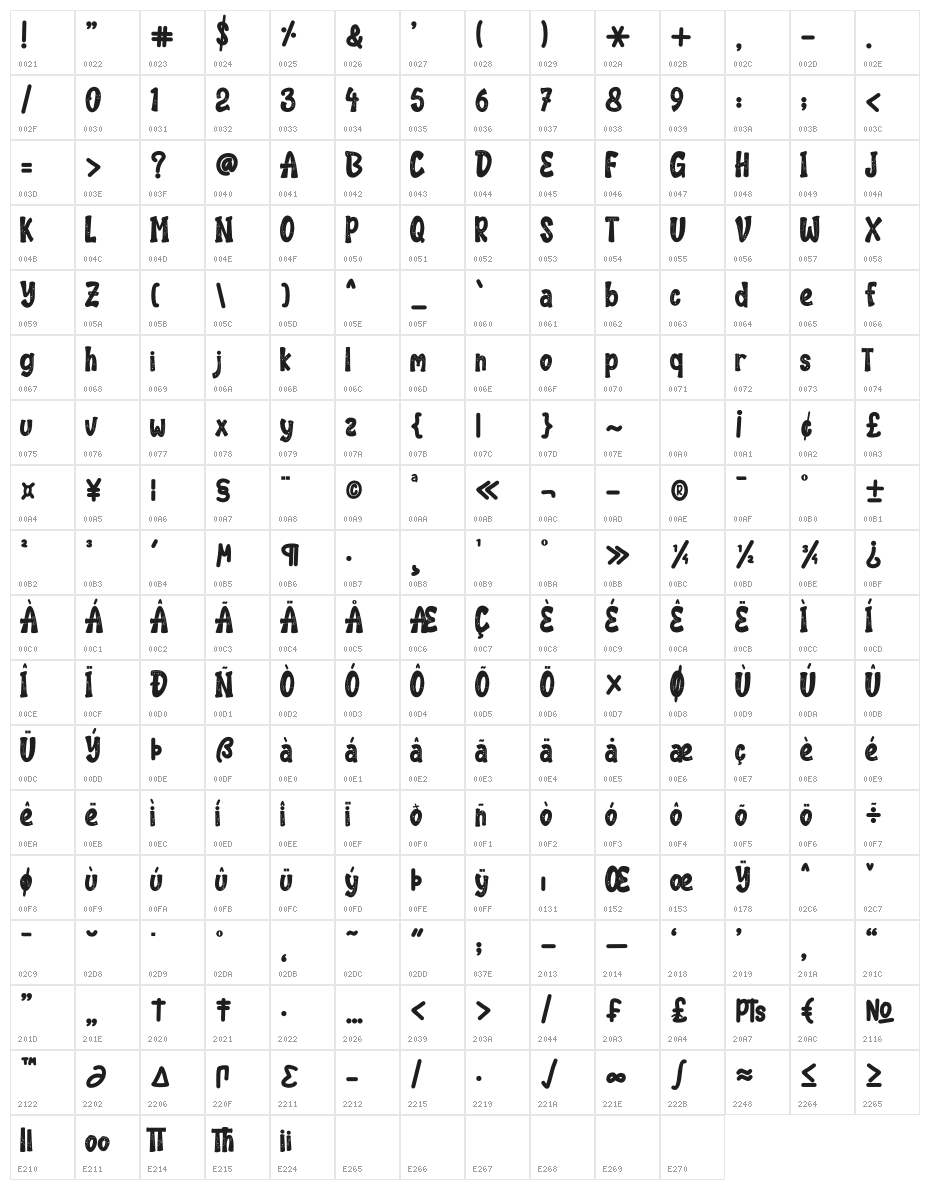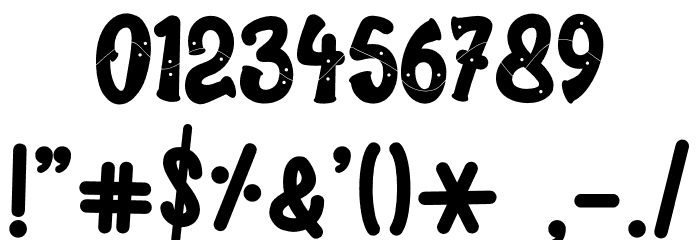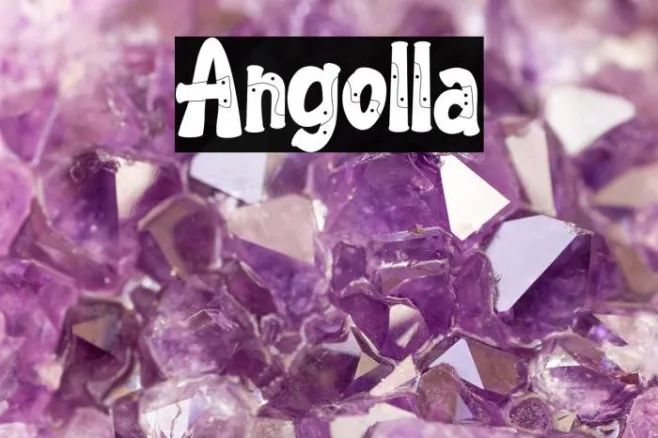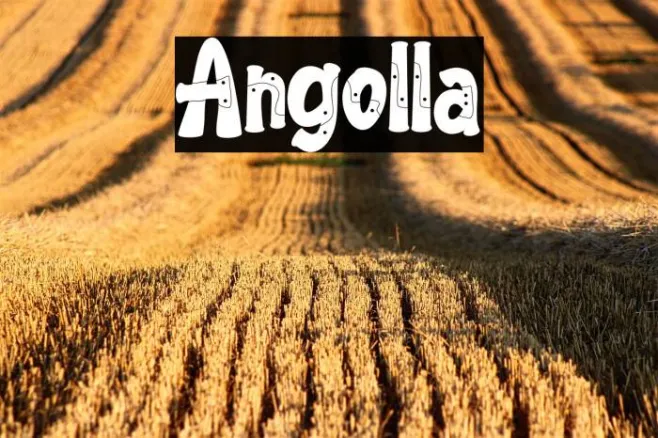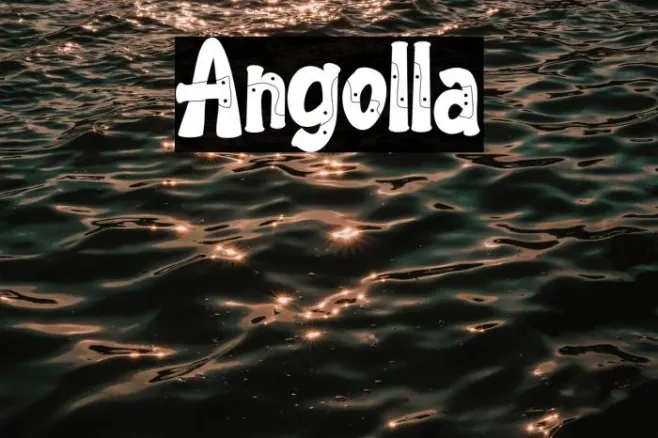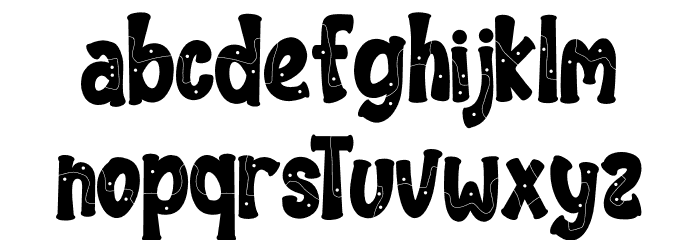
Angolla Font
Angolla Description
This playful and decorative font features bold, whimsical characters with a unique, hand-drawn appearance. Each letter is adorned with small, irregular dots and lines, giving it a lively and dynamic feel. The uppercase and lowercase letters maintain a consistent style, with rounded edges and a slightly uneven baseline that adds to the font's charm. The numerals and special characters are equally expressive, making this font ideal for creative and informal designs. Its bold weight and distinctive style make it stand out, perfect for capturing attention in various projects.
| Overall Style | Playful, Whimsical, Decorative |
| Proposed Projects | Ideal for children's books, playful branding, party invitations, and creative posters. |